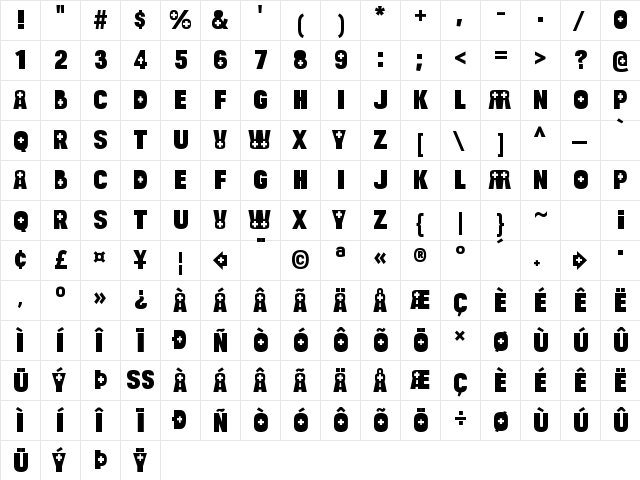
Bulltoad Health Regular
Design Context for Bulltoad Health Typeface
Bulltoad Health is a composed and adaptable typeface that performs quietly and consistently across a wide range of design contexts.